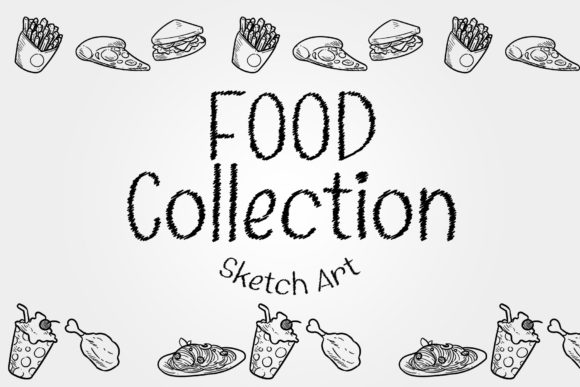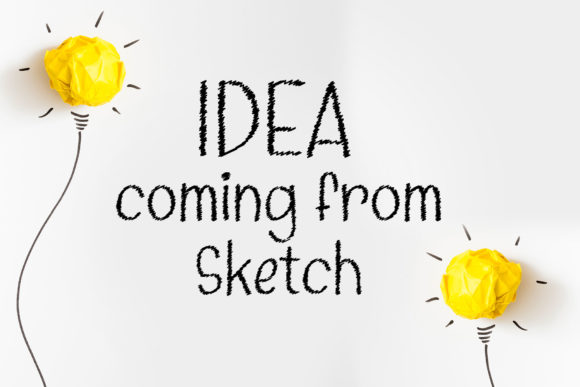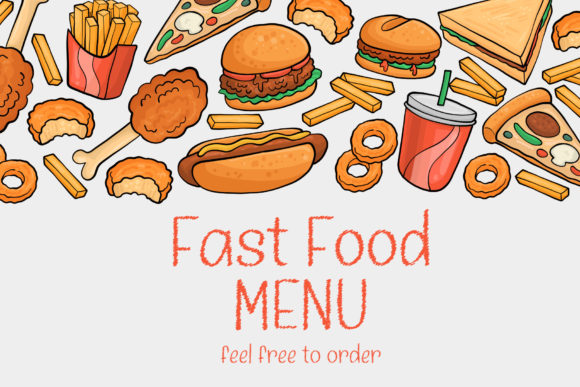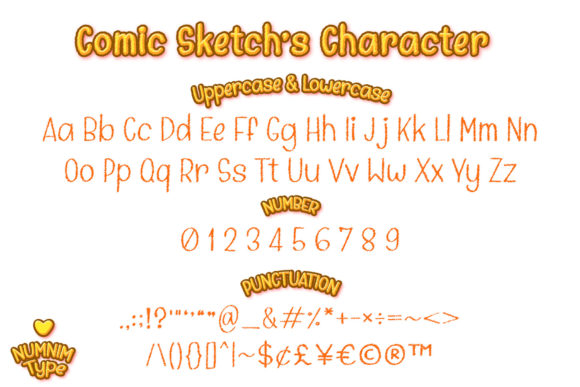
The Ultimate Comic Sketch Font Guide: Unleashing Fun and Creativity
I’ll never forget the time I was working on a project for a client who wanted a fun, playful design that captured the essence of a comic book. I spent hours scouring the internet for the perfect font, but nothing seemed quite right. That was until I stumbled upon Comic Sketch – a game-changing display font that embodies fun, quirkiness, and authenticity. In this article, I’ll share my experience with Comic Sketch, its features, and how to make the most of it in various design platforms.
- ✅ Unique and quirky design that adds a touch of personality to any project
- ✅ Highly legible, even at larger font sizes
- ✅ Supports OpenType features, glyphs, and stylistic alternates for added versatility
- ✅ Perfect for display text, headings, and titles
Small Quirks and Limitations 🤔
- ⚠️ May not be suitable for body text or smaller font sizes due to its bold and playful nature
- ⚠️ Limited use of punctuation and special characters, but this can be addressed with glyphs and OpenType features
A Practical Guide to Using Comic Sketch
Comic Sketch was designed with one goal in mind: to create a font that embodies the fun, quirkiness, and authenticity of comic books. The designer wanted to capture the essence of a bygone era, when comics were a staple of childhood entertainment. With Comic Sketch, you can bring that same sense of wonder and excitement to your designs.
Q: What is Comic Sketch font?
A: Comic Sketch is a display font designed to capture the fun, quirkiness, and authenticity of comic books.
Q: Is Comic Sketch suitable for body text?
A: While Comic Sketch is highly legible, it’s best suited for display text, headings, and titles due to its bold and playful nature.